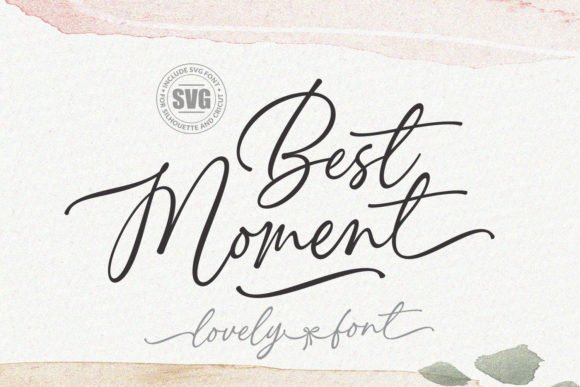
Unlocking the Magic of Life’s Most Cherished Moments
Have you ever looked through old photo albums or scrolled through your social media feed, and suddenly a wave of nostalgia washes over you? Maybe it’s a picture of your first kiss, a milestone birthday, or a trip that changed your life. Whatever it is, those moments are precious, and they deserve to be remembered in style.
That’s where Best Moment Font comes in – a beautiful, handcrafted script font that’s designed to make your cherished memories stand out. This warm and inviting font is perfect for decorating photos, signing love letters, or adding a personal touch to your greeting cards. As a designer, you know how much attention to detail can make all the difference, and Best Moment Font is sure to elevate your creations to new heights.
Best Moment Font Key Features
- Unique Characteristics: The Best Moment Font features a unique, hand-drawn design with subtle imperfections, giving it a personal and emotive feel. The font also includes a range of ligatures and contextual alternates to enhance readability and aesthetic appeal.
- Weight and Style: The Best Moment Font is available in a range of weights and styles, including Regular, Bold, Italic, and Bold Italic, allowing users to choose the perfect font to suit their needs.
Best Moment Font Review
I recently had the chance to work with the “Best Moment Font” and I must say it has its highs and lows. Here’s my honest review:
- Unique Character Set: The font has a lovely, hand-drawn feel that makes it perfect for projects that need a personal touch.
- Wide Font Weight Options: I appreciate the variety of font weights available, making it easy to find the perfect fit for my design needs.
- Legibility: The font is surprisingly legible, even at smaller sizes, which is a must-have for me when working on complex projects.
- Lack of Consistency: I noticed some inconsistencies in the font’s spacing and alignment, which can be jarring in certain contexts.
- Limited Kerning: The font’s kerning could be improved, especially for certain letter combinations that look awkward.
- Not Ideal for Body Text: While the font is great for headings and titles, I found it less suitable for body text due to its unconventional feel.
Overall, I’d say the “Best Moment Font” is a solid choice for designers who want to add a touch of personality to their projects. While it has its limitations, it’s still a great option for those who value uniqueness and a handcrafted feel. With some adjustments and refinements, I believe this font has the potential to be a real showstopper.
Tips for using Best Moment font in Canva: Use it for quotes, captions, or headings to add a touch of elegance and sophistication to your designs.
Tips for using Best Moment font in Adobe Photoshop or Illustrator: Use it for custom typography projects, logos, or branding materials to create a unique and memorable visual identity.
Tips for using Best Moment font in PowerPoint or Word: Use it for presentations, reports, or documents to add a touch of professionalism and style.
The Best Moment font is versatile and can be used in a variety of contexts, including:
- Event branding and marketing materials
- Custom typography
Are there any specific font pairing recommendations for Best Moment Font?
Best Moment Font is a versatile font that can be paired with a variety of fonts to create unique and visually appealing combinations. For a clean and modern look, pair Best Moment Font with sans-serif fonts like Open Sans or Lato. For a more elegant and sophisticated look, pair Best Moment Font with serif fonts like Georgia or Merriweather.